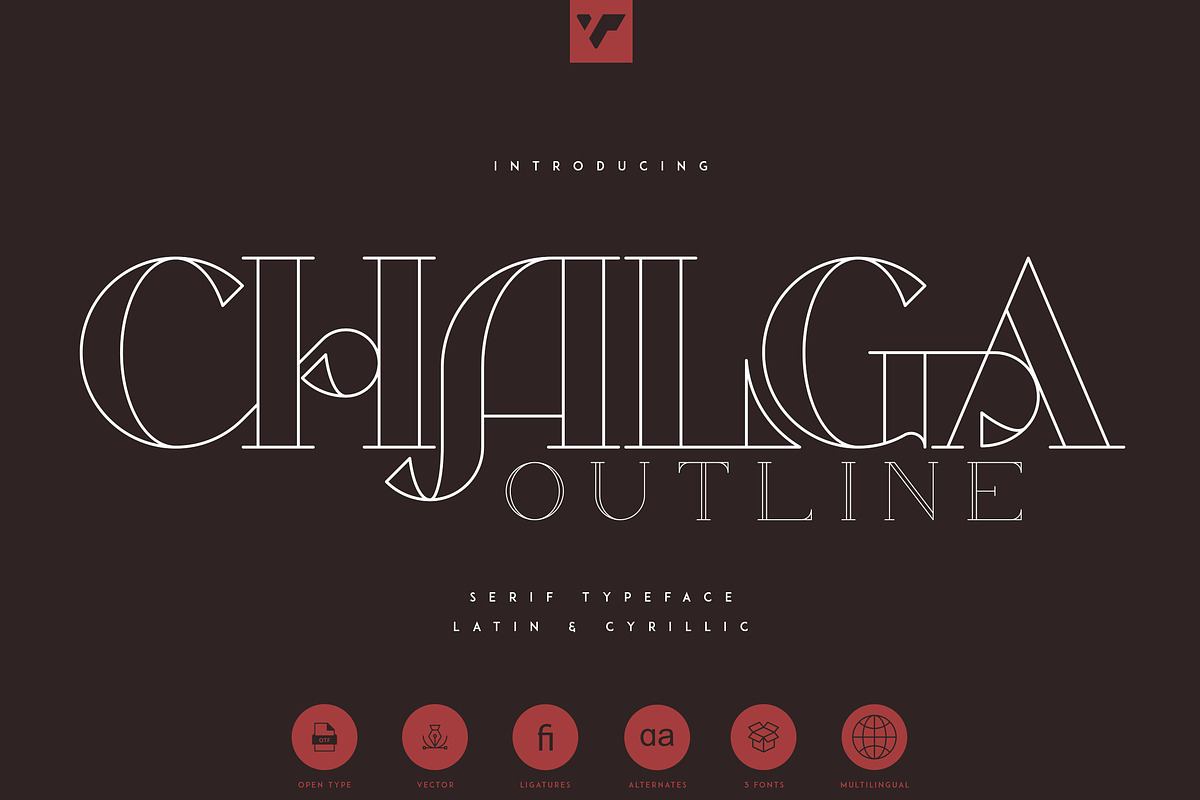
Chalga Outline Serif Typeface Free Download is a refined yet modern typeface that blends classic serif structure with a stylish outlined design. Perfect for editorial layouts, branding, packaging, posters, and high-end fashion content, this font brings sophistication with a fresh, contemporary edge. Its elegant curves and clean lines make it a great choice for projects that need to stand out with both class and creativity.
The outlined serif style adds a unique twist to traditional typography, making Chalga Outline ideal for logos, magazine titles, and statement graphics. You can test it out freely for personal use or design mockups, but you must purchase a license to use it in any commercial setting.
Download Chalga Outline Serif Typeface Free Download and bring a new level of elegance to your design work. Whether you’re creating chic branding or minimalist editorial pieces, this font offers the perfect balance of timeless beauty and modern flair.